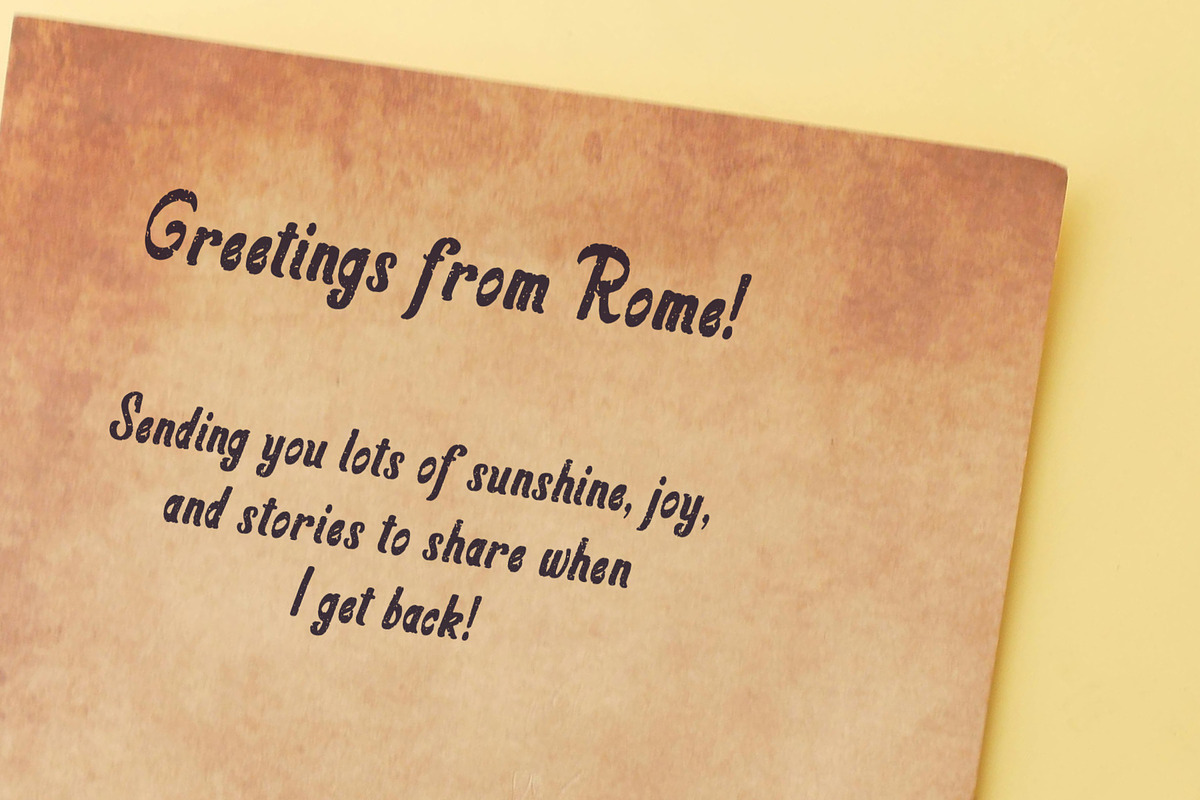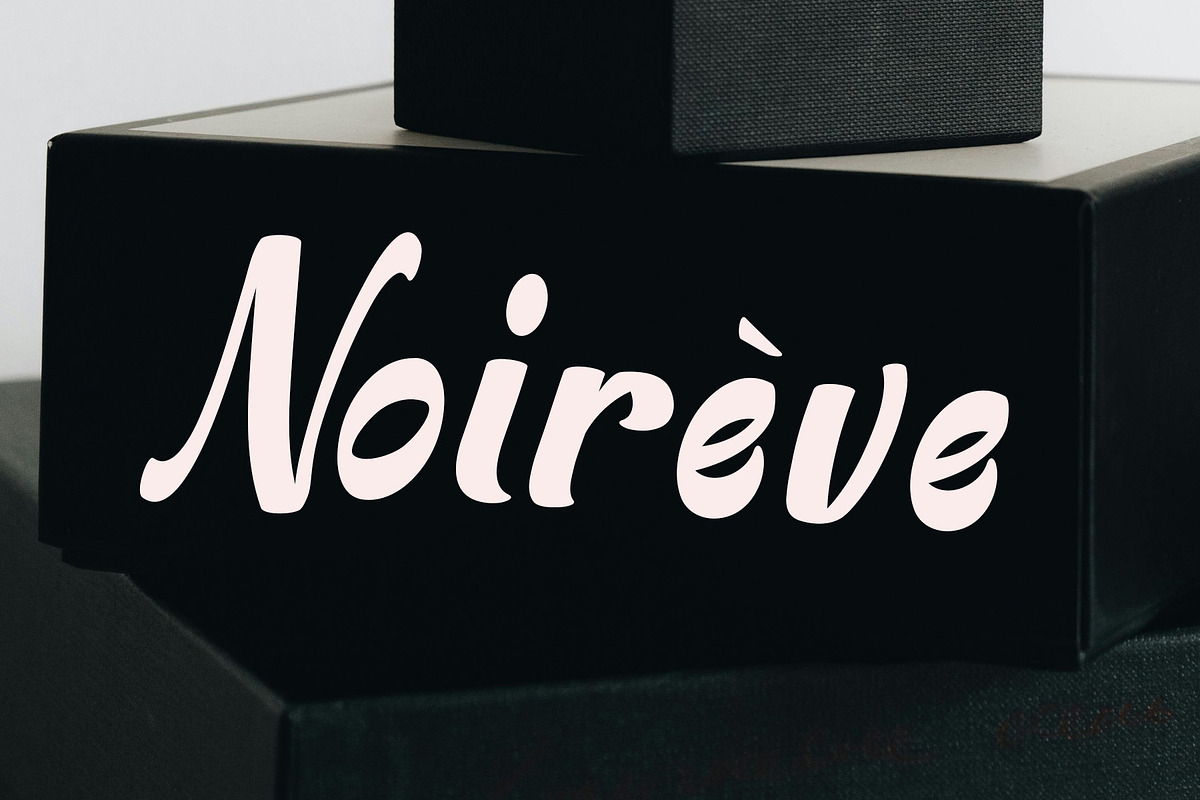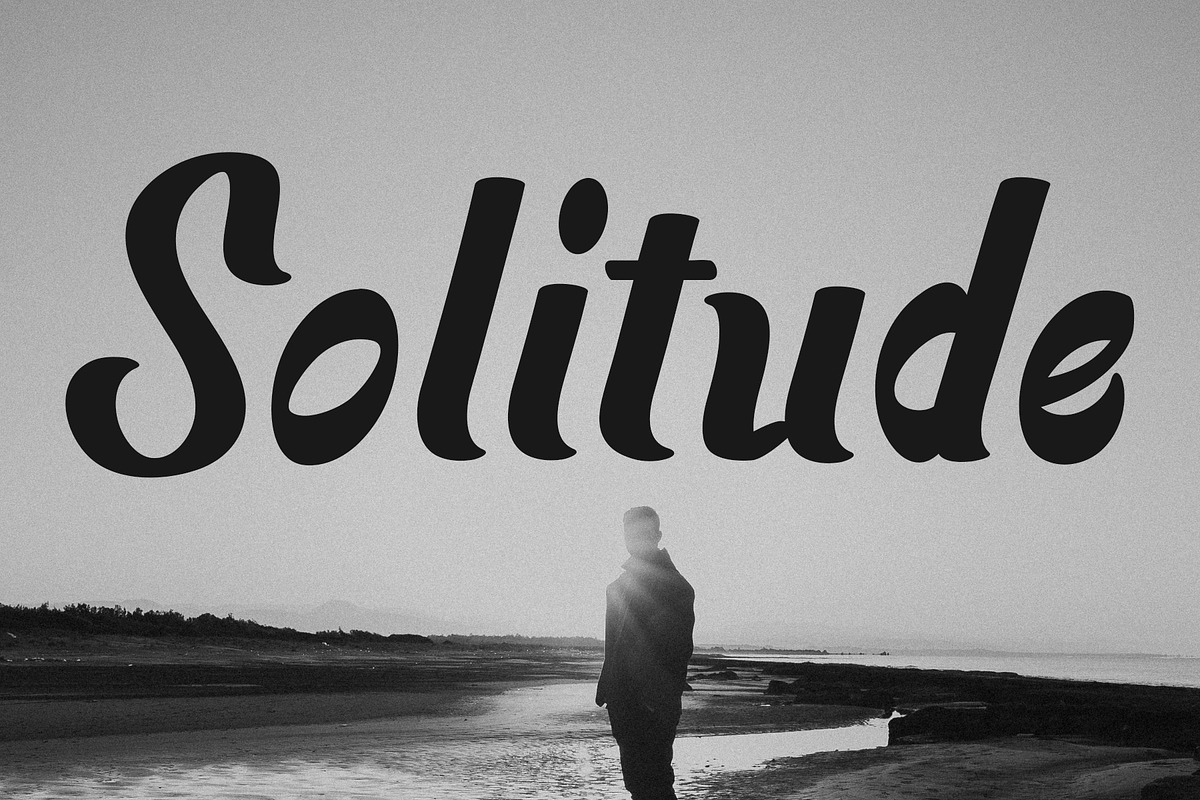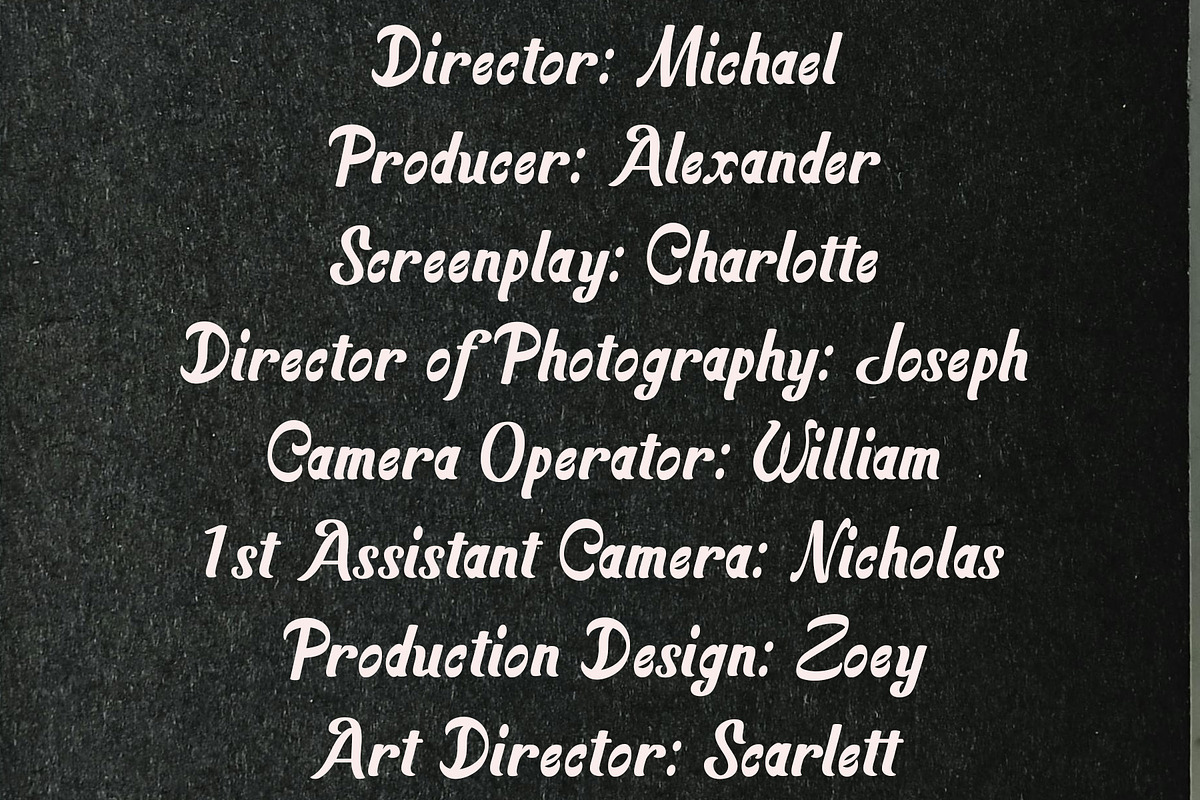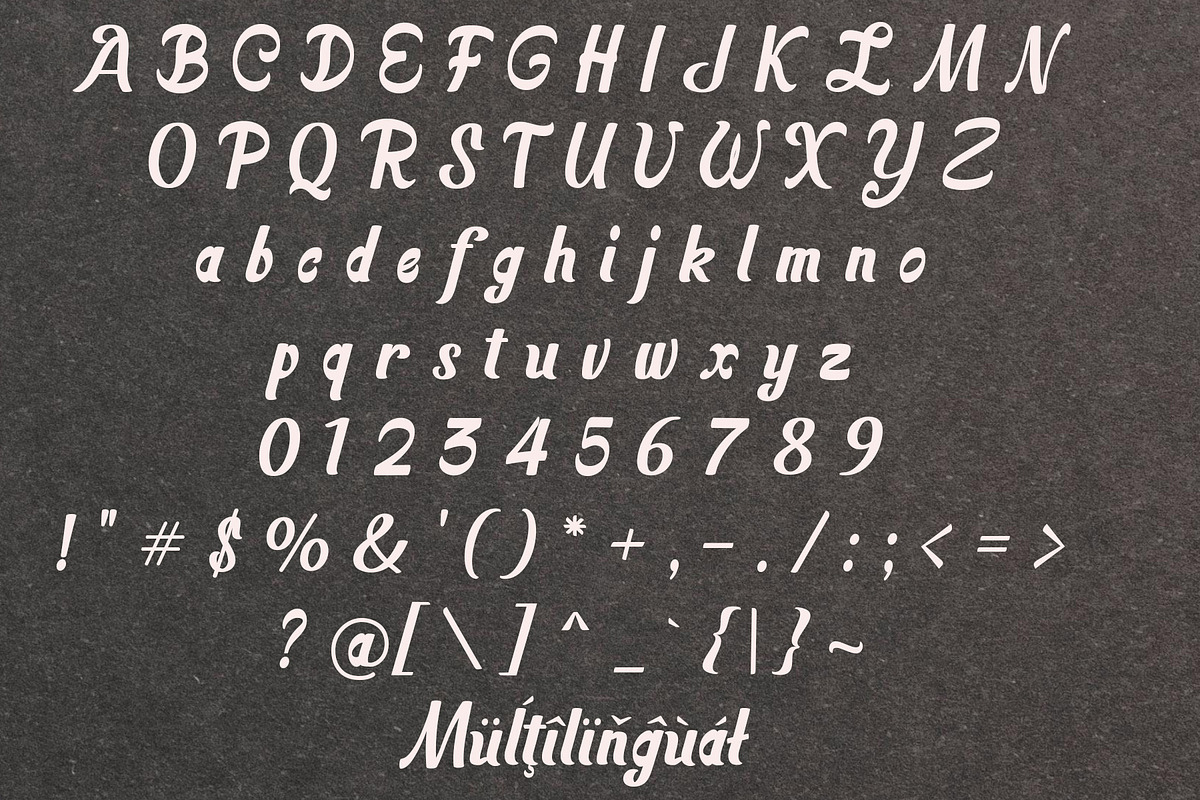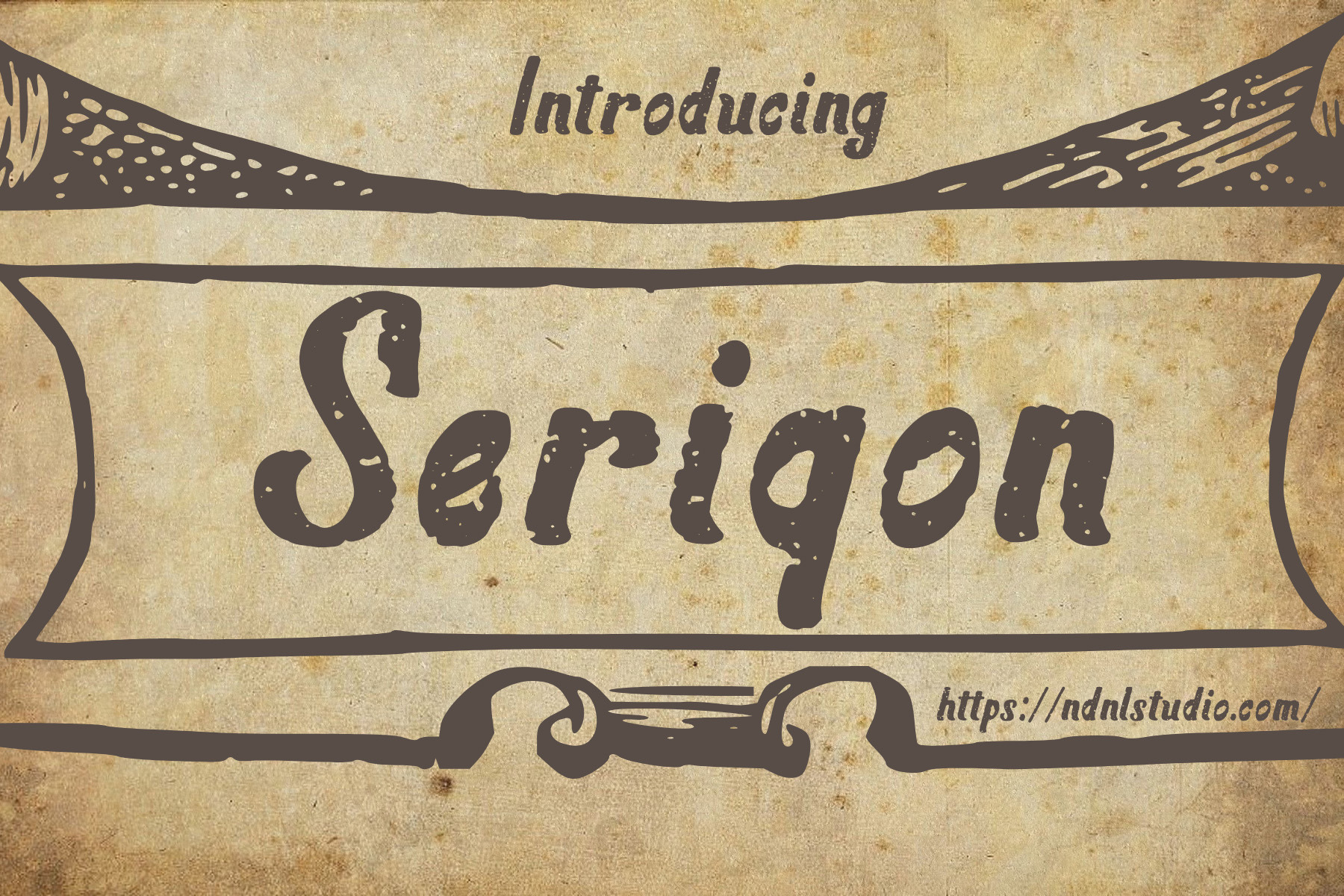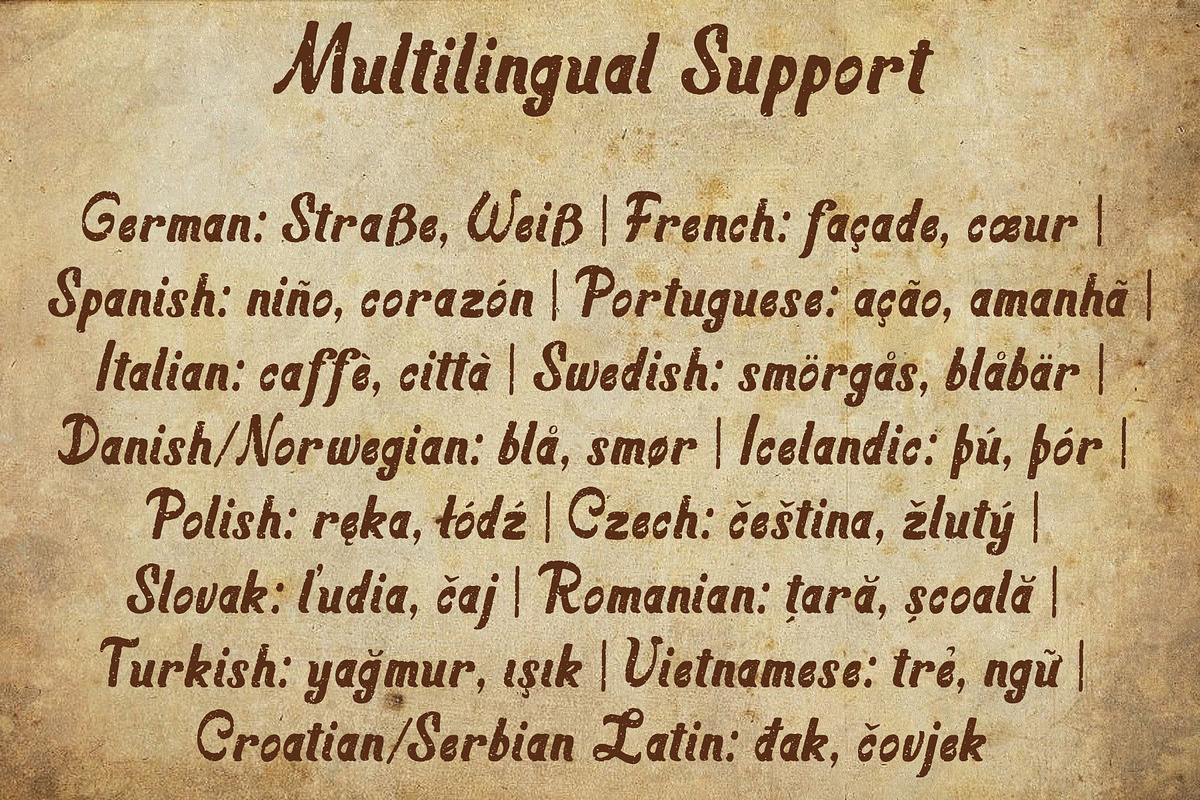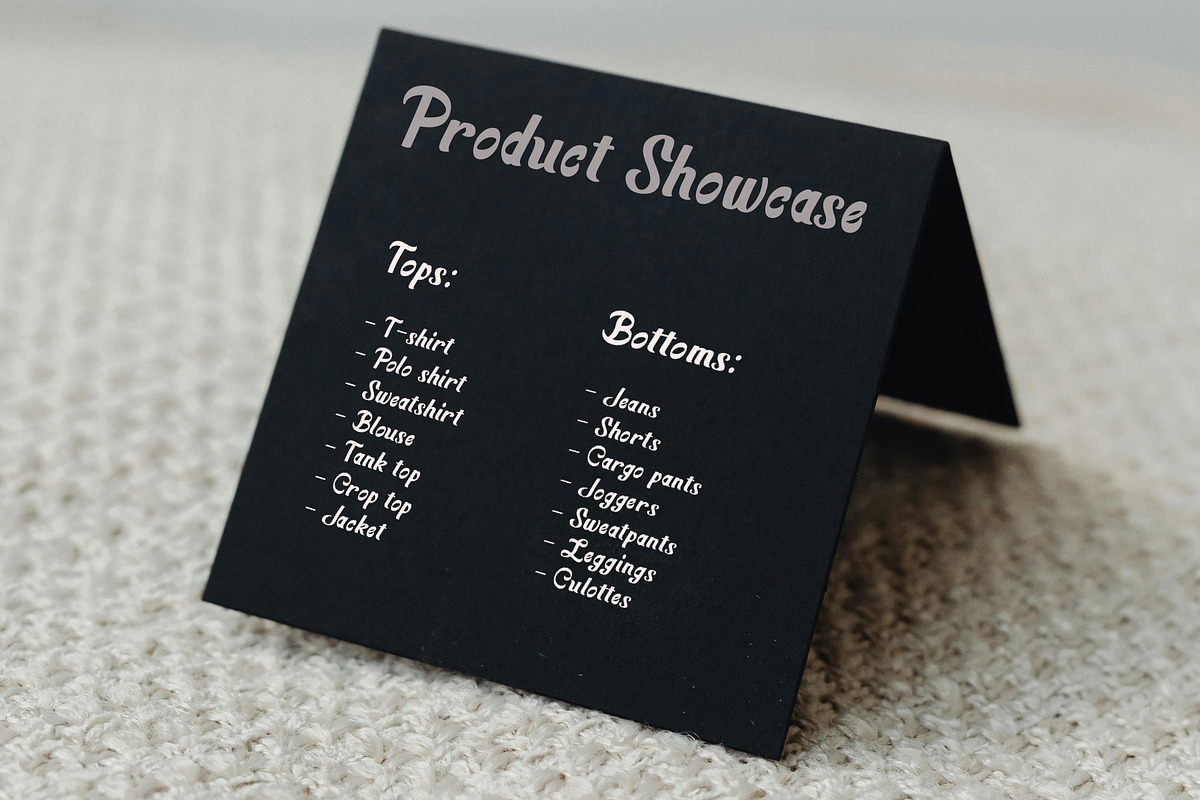
Seriqon - Font Duo
Introducing Seriqon !
Seriqon is a handcrafted serif typeface with a vintage and rustic spirit, inspired by old signage, classic posters, and nostalgic print aesthetics. Its soft rounded shapes, slightly irregular strokes, and subtle textured feel give the font a warm, organic, and expressive character.
Seriqon is perfect for retro-themed projects, rustic branding, handmade product packaging, cafés, bakeries, posters, book titles, editorial headers, and artistic visual identities that seek warmth, charm, and personality.